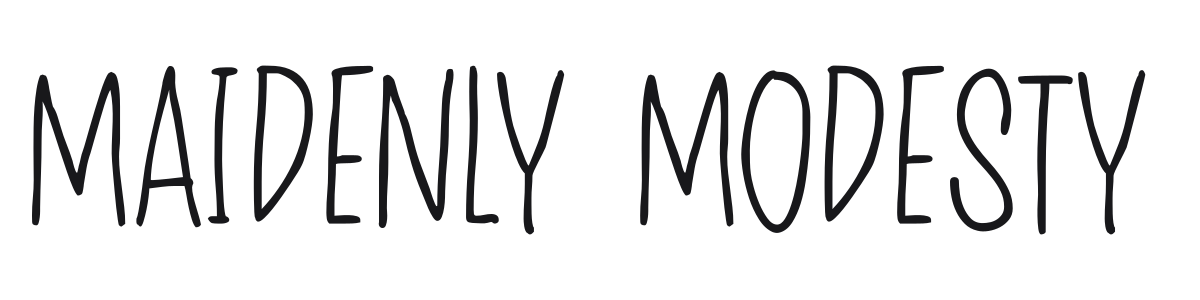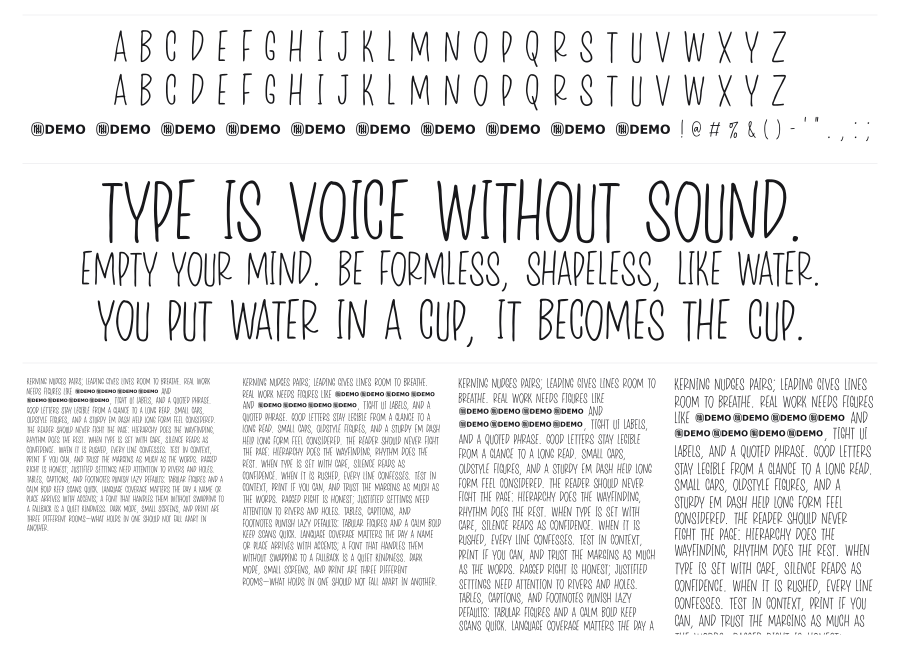
Maidenly Modesty
Maidenly Modesty is a hand-drawn display sans with tall, narrow proportions and a casual, slightly uneven stroke that keeps it feeling personal rather than mechanical. The characters sit somewhere between printed block lettering and informal handwriting, giving it a warm, artisanal quality. It reads well at large sizes and brings an easygoing character to packaging, posters, and branding.